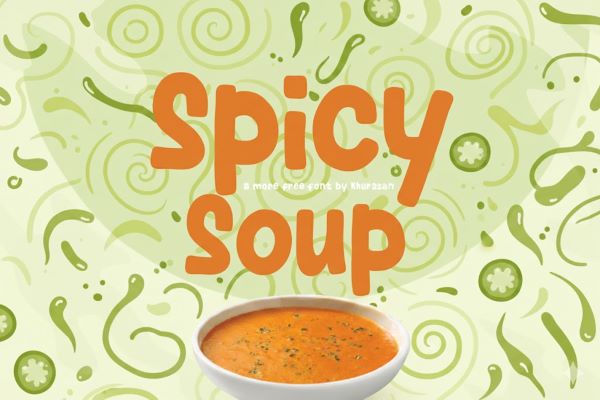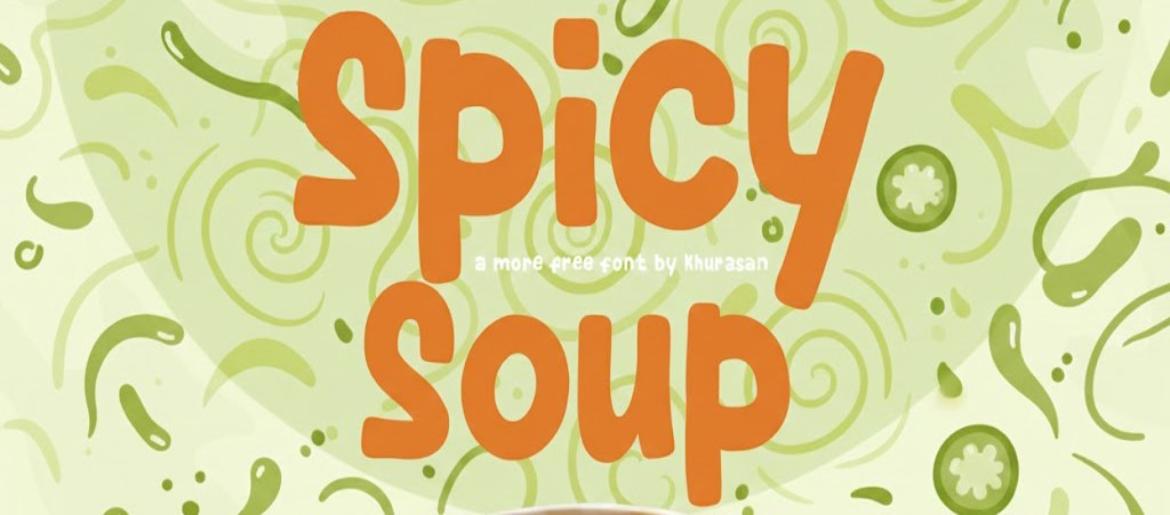
Spicy Soup Font
Spicy Soup is an expressive hand-drawn font by Syafrizal a.k.a. Khurasan that captures the spontaneous energy of fanciful hand lettering. Each letterform carries its own distinct character — lively, loose, and brimming with comic charm. It’s an ideal choice for comic book titles, animated quotes, fun posters, children’s media, and any creative project that needs personality right out of the box. Free for personal and commercial use, and available in both TTF and OTF formats.